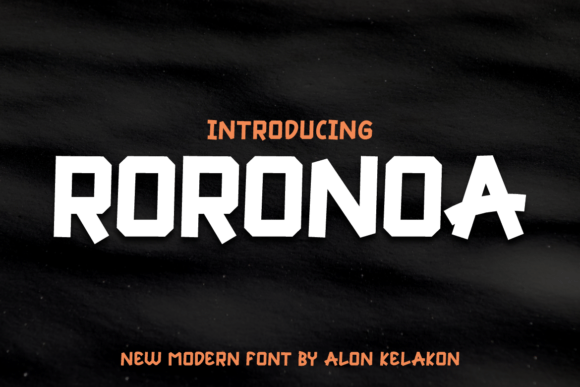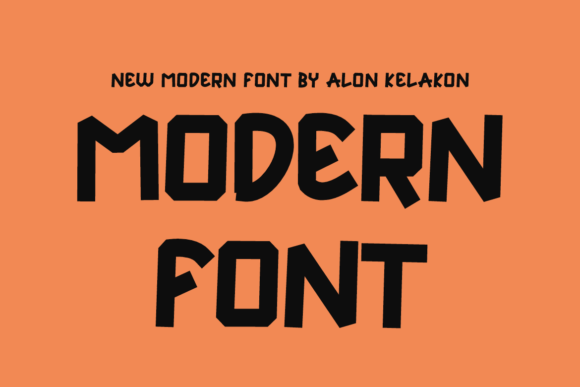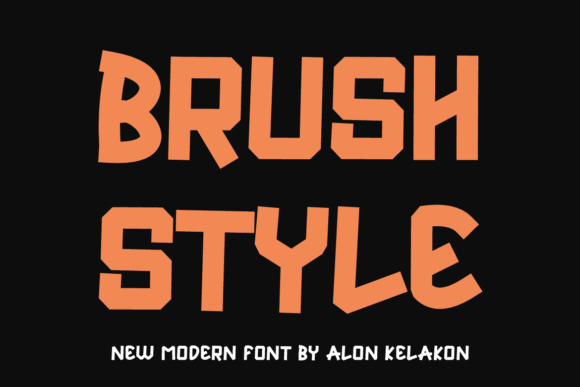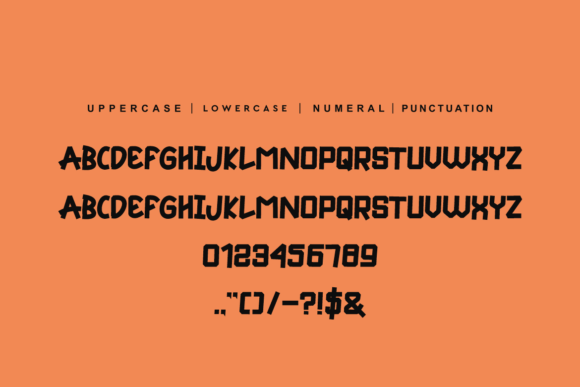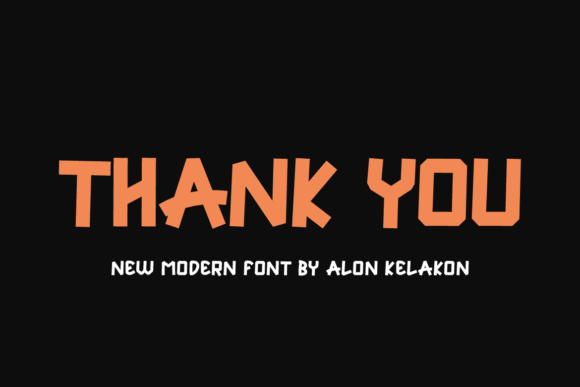
Roronoa
About Roronoa
Roronoa Font is unique . Ready to use for your design like labeling, clothing, movie sceen, poster, movie title, gigs, album covers, logos, and much more.